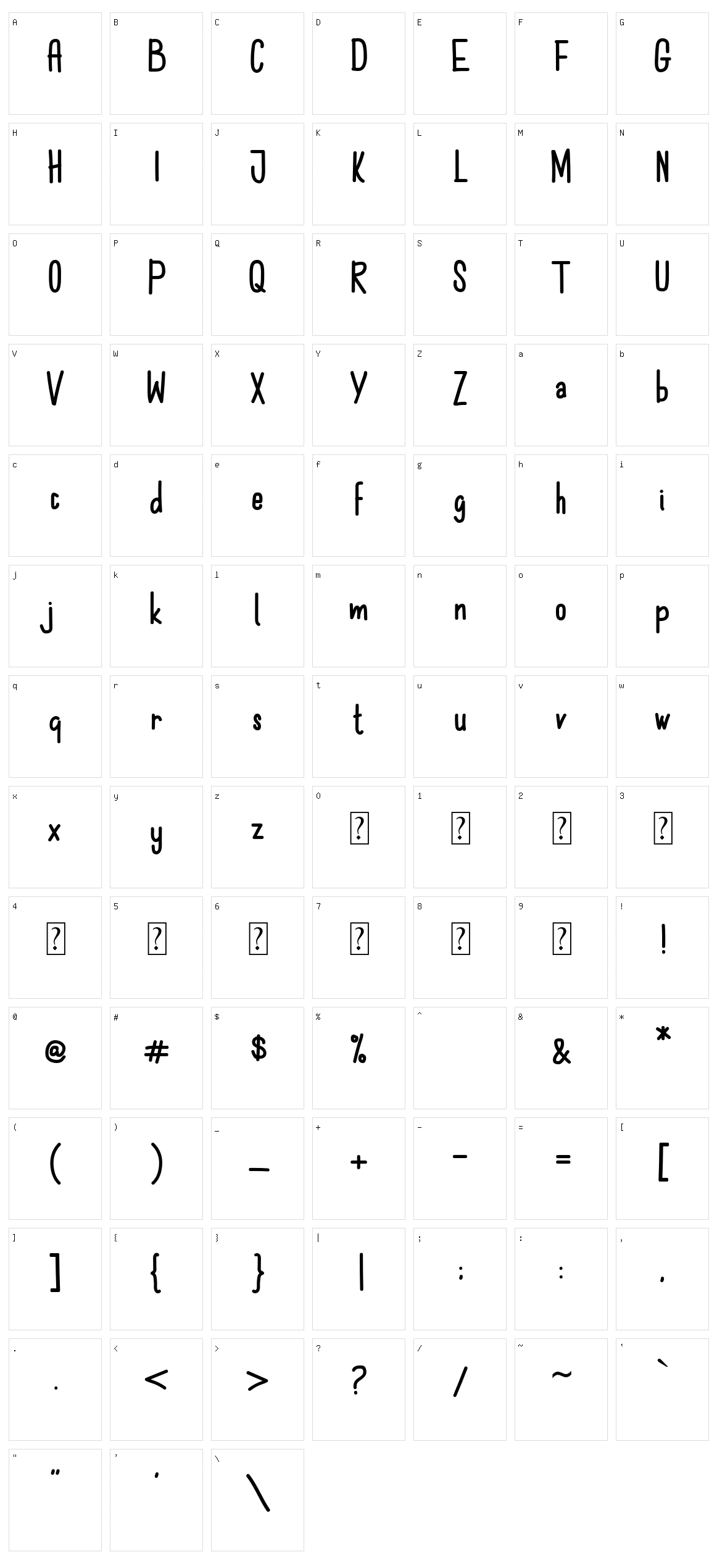
The free font The Book is carefully designed by Abdul Basit, showcasing a thoughtful balance of creativity and usability and falls under the Script font style. When you download the ZIP file, it contains only 77 KB of font files, making it lightweight and quick to download. Please review the license details below to understand permitted usage and distribution rights. If license information is not available, we recommend using this font for personal projects only or contacting the author directly for commercial usage permissions.